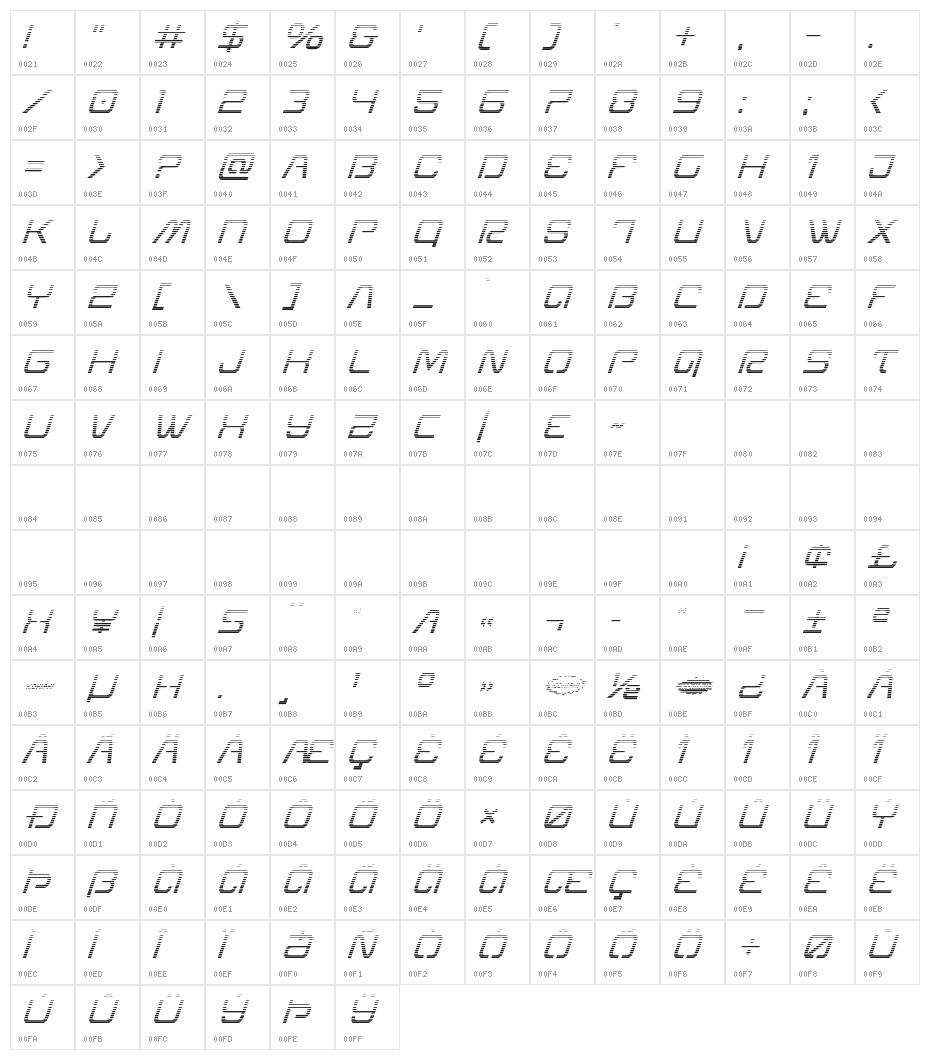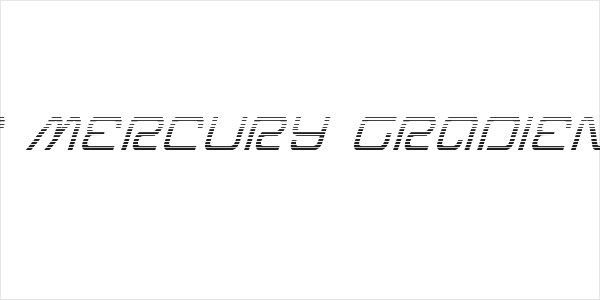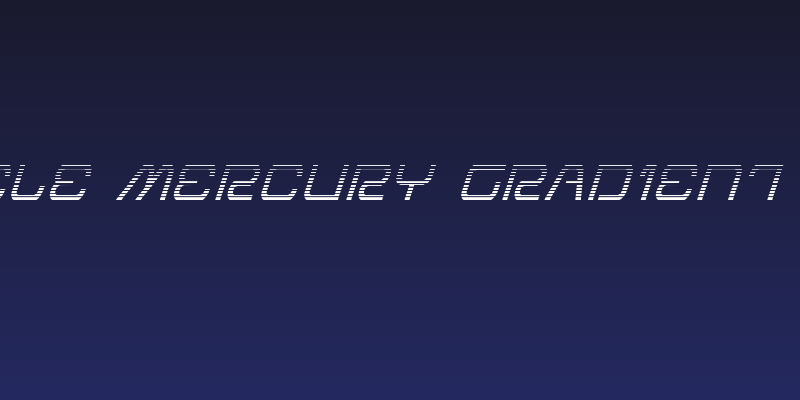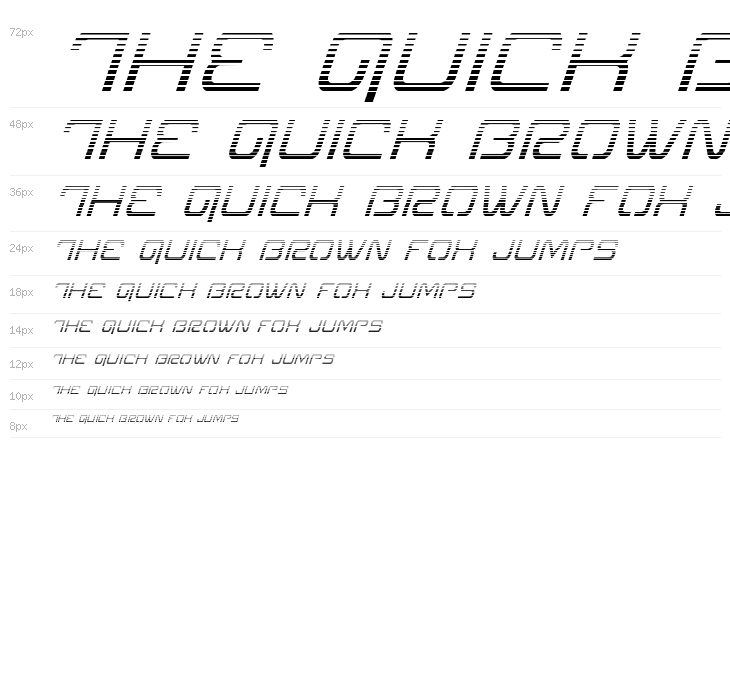
Miracle Mercury Gradient Italic Font
Miracle Mercury Gradient Italic Description
This font features a futuristic and dynamic design with a distinct gradient effect. The characters are italicized, giving them a sense of motion and speed. Each letter is composed of horizontal lines that create a striped pattern, adding a unique texture to the text. The overall appearance is sleek and modern, making it suitable for projects that aim to convey innovation and forward-thinking. The font maintains a consistent style across uppercase, lowercase, numbers, and special characters, ensuring versatility in various design applications.